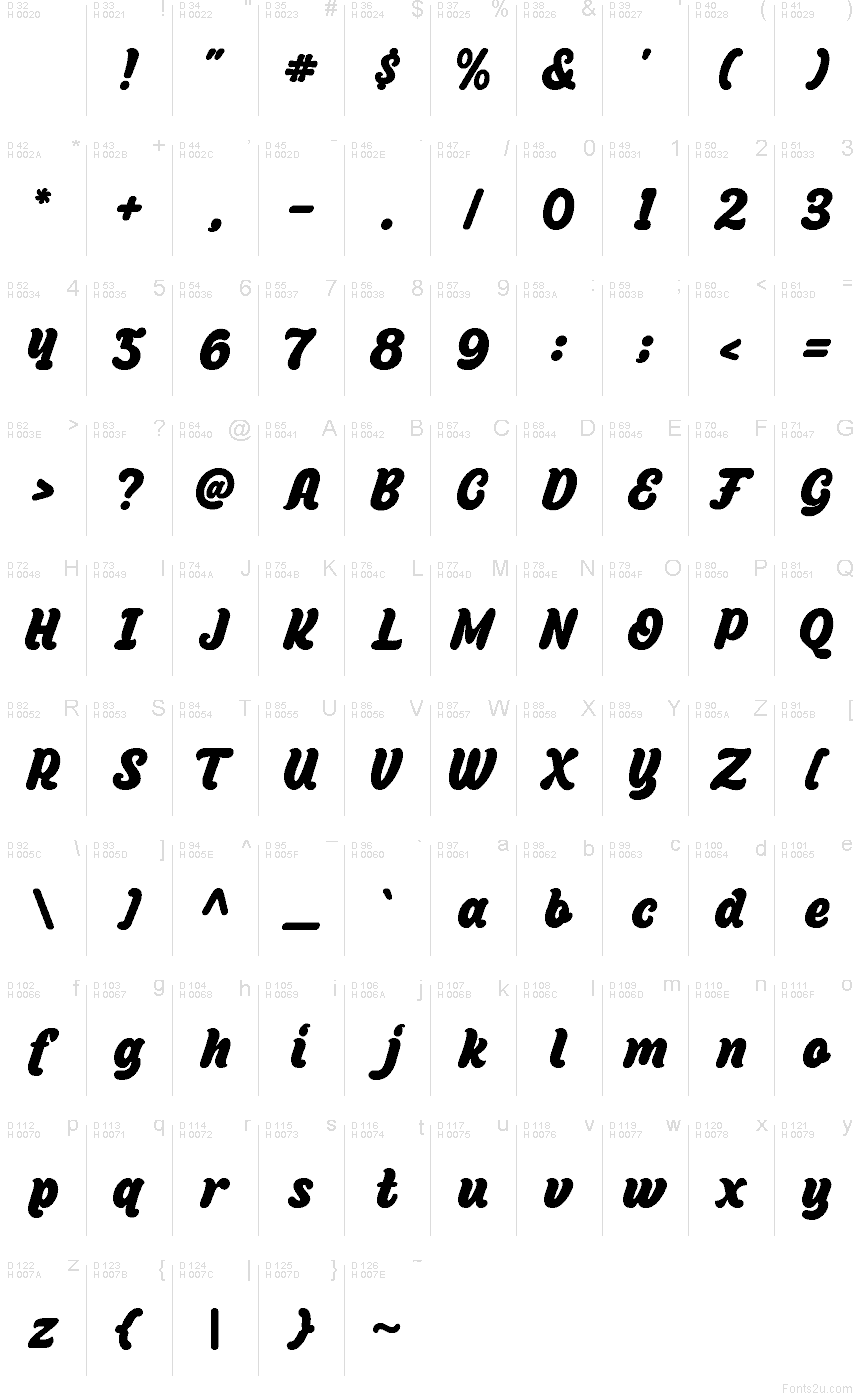
Ohleys font by Angin Studio is a free brush script typeface with a thick, inky stroke and soft, rounded edges that feel almost buttery. The letters flow into each other in smooth waves, giving every word a friendly, hand-painted swagger-like a bold sign on a bakery window or a vintage soda label. It has enough weight to hold its own in a busy layout, while the gentle curves keep it warm and approachable instead of shouty.
Using Ohleys, you can give logos, packaging, posters, social media graphics, café menus, and product labels an easygoing, handcrafted character that still reads clearly at a glance. This free font shines when used large, where the chunky strokes and flowing connections can really breathe; pair it with a simple, neutral sans serif for supporting text to let its bold brush personality stay in the spotlight.
Ohleys